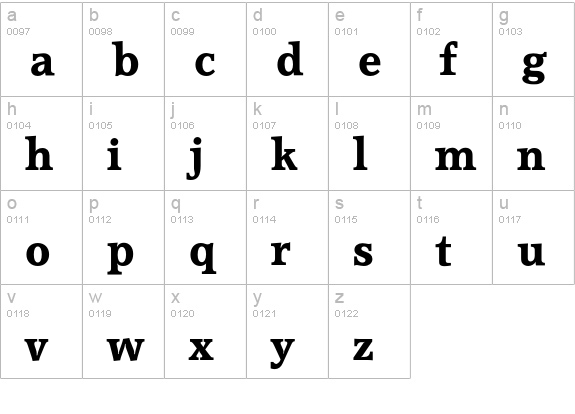
Accolade-Bold is a strong, high-contrast variant in the Accolade typeface family \xE2\x80\x94 well suited to headlines, attention-grabbing titles, and strong calls-to-action.
Accolade-Bold is a stunning and robust font that exudes power and sophistication. With its bold and commanding presence, this typeface is perfect for making a statement in any design project. The strong, clean lines of Accolade-Bold convey a sense of authority and professionalism, making it ideal for titles, headlines, and branding. What's even better is that Accolade-Bold is available for free download at FontsMarket.com. Yes, you read that right - this top-quality font can be yours at no cost, allowing you to elevate your designs without breaking the bank. Whether you're working on a logo, poster, or website, Accolade-Bold will help you stand out with its bold and impactful style. Download it today and take your design projects to the next level!